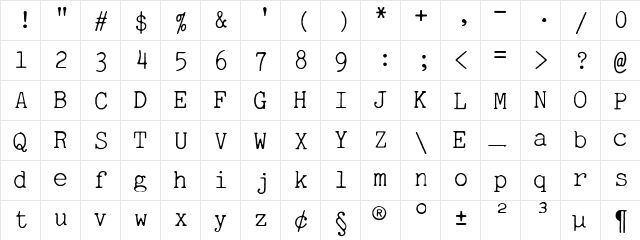
01196a Regular
Design Context for 01196a Typeface
01196a takes a measured approach to typography — its balanced proportions and neutral character make it a reliable workhorse for both digital and print work.